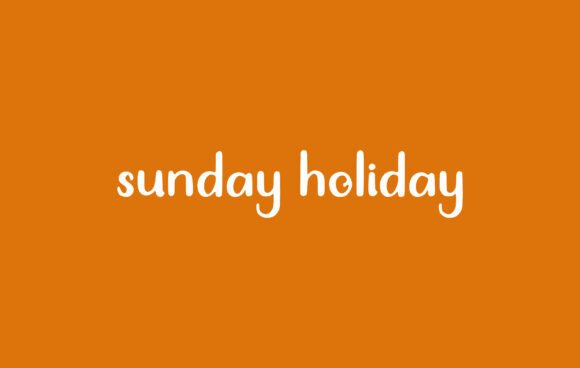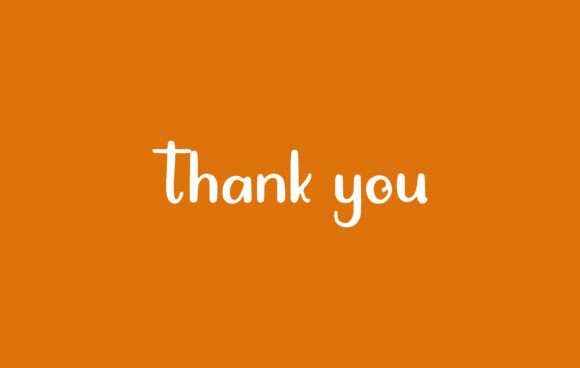
Discover the Charm of Heidi Font: Elevate Your Designs with a Romantic Touch
Are you on the lookout for a font that adds a touch of romance and elegance to your designs? Look no further than the Heidi Font. This authentic handwritten font is expertly designed to capture the hearts of designers and crafters alike, making it a true favorite among creative enthusiasts. With its unique blend of sophistication and playfulness, Heidi Font has the potential to take your creative ideas to the highest level.
The Characteristics of Heidi Font
Heidi Font boasts a range of characteristics that make it an ideal choice for various design projects. Here are some of its key features:
- Legibility: One of the standout features of Heidi Font is its exceptional legibility. Whether you’re using it as a title or body text, this font ensures that your message is conveyed clearly and effectively.
- Romantic Touch: Heidi Font exudes a romantic charm that is perfect for designs that require a touch of elegance and sophistication. Its handwritten style adds a personal and intimate feel to your projects.
- Versatility: This font is incredibly versatile and can be used for a wide range of design projects, including magazine headlines, social media graphics, branding materials, wedding invitations, cards, and more.
Uses of Heidi Font
Heidi Font’s versatility makes it an excellent choice for various design applications. Here are some ideas to get you started:
- Magazine Headlines: Add a touch of glamour to your magazine headlines with Heidi Font. Its elegant and sophisticated style is sure to grab the attention of your readers.
- Social Media Graphics: Elevate your social media presence with eye-catching graphics featuring Heidi Font. Its playful and romantic style is perfect for creating engaging and shareable content.
- Branding: Establish a strong brand identity with Heidi Font. Its unique and recognizable style will help you stand out from the competition and leave a lasting impression on your audience.
- Wedding Invitations: Make your wedding invitations truly special with Heidi Font. Its romantic and elegant style will set the tone for a beautiful and memorable wedding celebration.
- Cards and Stationery: Add a personal touch to your cards and stationery with Heidi Font. Its handwritten style makes it perfect for creating heartfelt and meaningful messages.
Why Choose Heidi Font?
With so many fonts available, why choose Heidi Font? Here are just a few reasons why this font stands out from the rest:
- Unique Style: Heidi Font boasts a unique and distinctive style that sets it apart from other fonts. Its romantic and elegant charm is sure to make your designs stand out.
- High-Quality Design: This font is expertly designed to ensure that it looks great in any design application. Its high-quality design makes it perfect for both print and digital projects.
- Easy to Read: Heidi Font is incredibly easy to read, making it perfect for body text and other applications where legibility is crucial.
In conclusion, Heidi Font is an exceptional handwritten font that adds a touch of romance and elegance to any design project. Its unique style, versatility, and exceptional legibility make it an ideal choice for designers and crafters looking to elevate their creative ideas. Whether you’re working on a magazine headline, social media graphic, branding material, wedding invitation, or card, Heidi Font is sure to take your designs to the highest level.